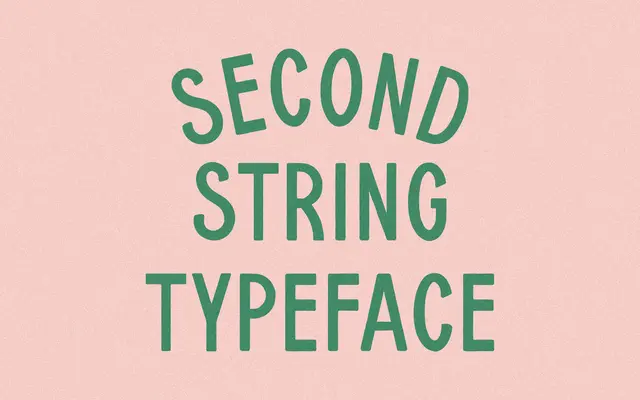
Second String
A single-weight sans with clean geometry and a hint of nostalgia, aimed at branding and packaging work.
Released as a single Regular weight, Second String keeps its glyph set lean at 151 characters with basic Latin and a limited range of accented forms. The foundry positions it for branding, packaging and identity work where a quietly retro quality is wanted without overt period styling. At £25 with a flat commercial licence covering logos, web, print and broadcast, it sits at the accessible end of the independent type market.
The foundry describes clean forms and subtle nostalgia, suggesting a geometric or near-geometric sans with vintage inflection suited to branding and packaging.